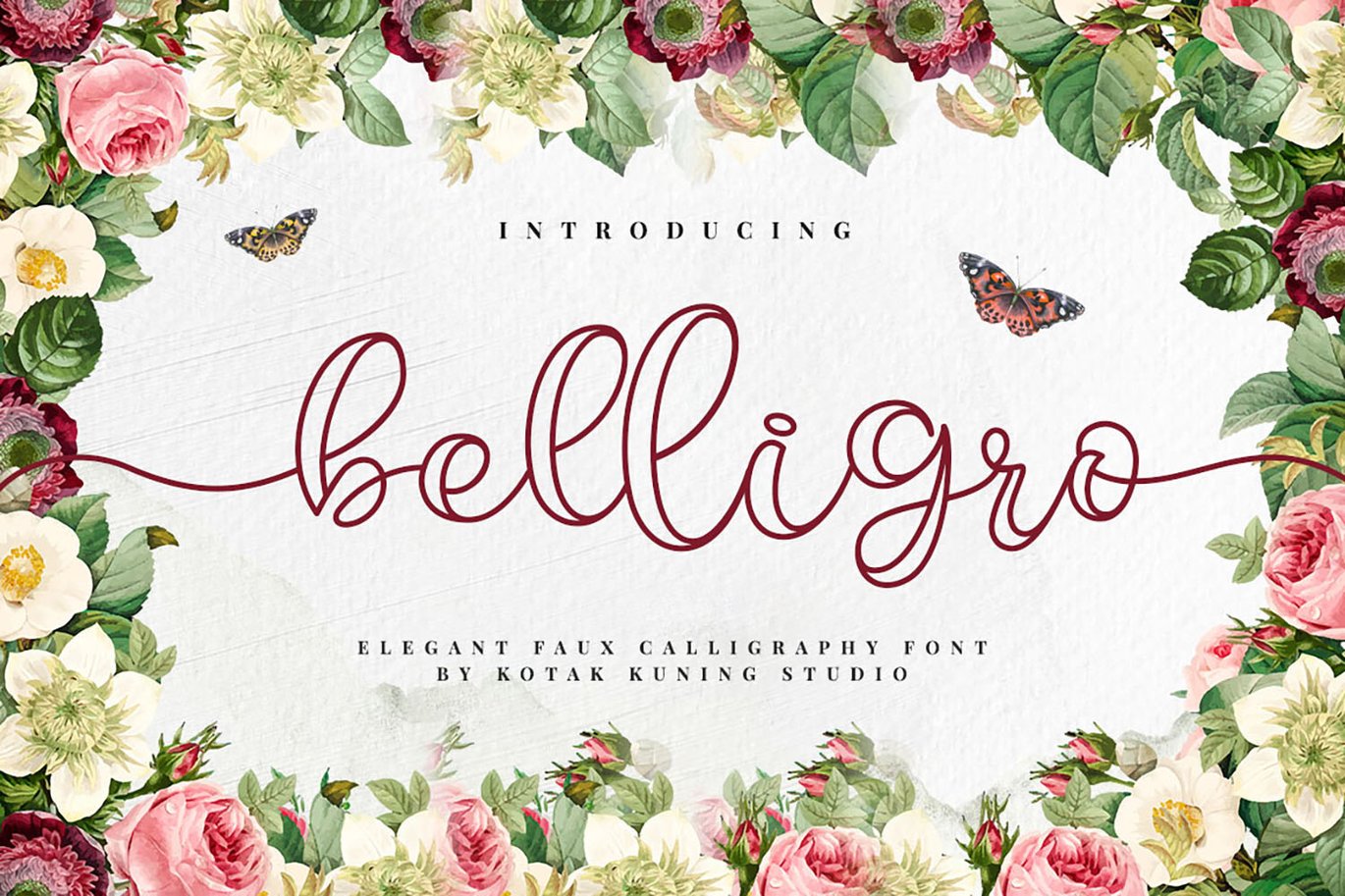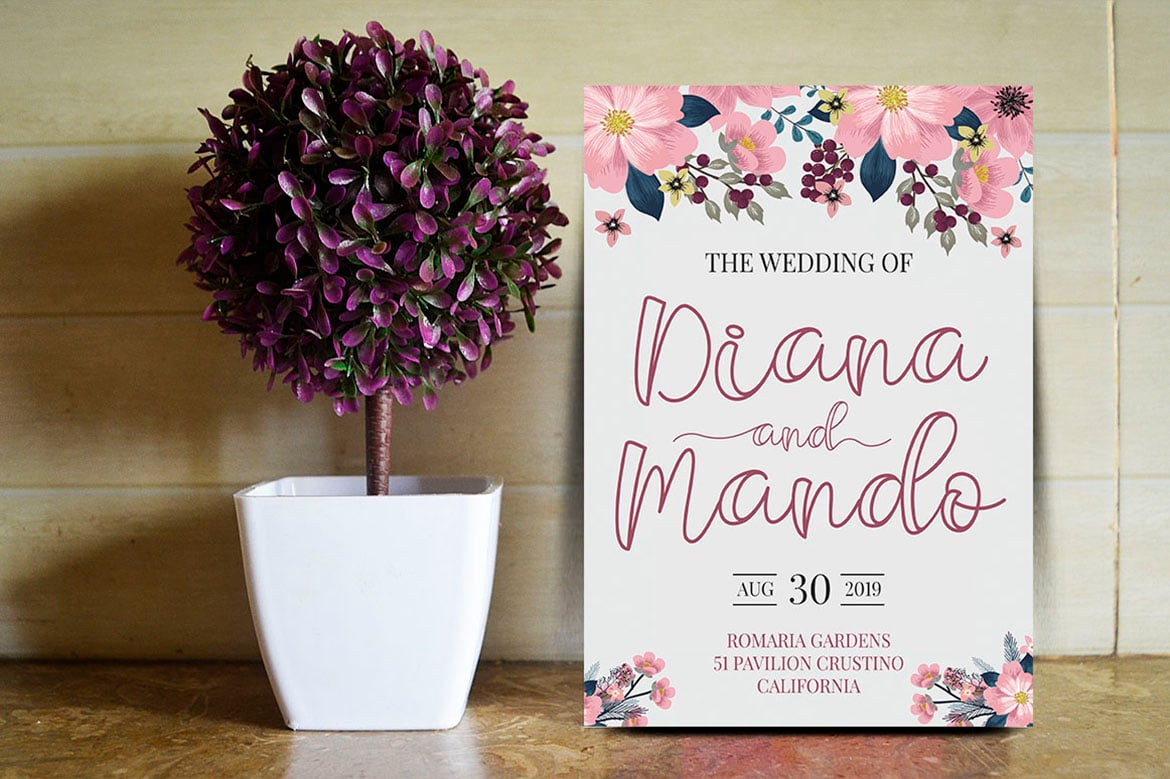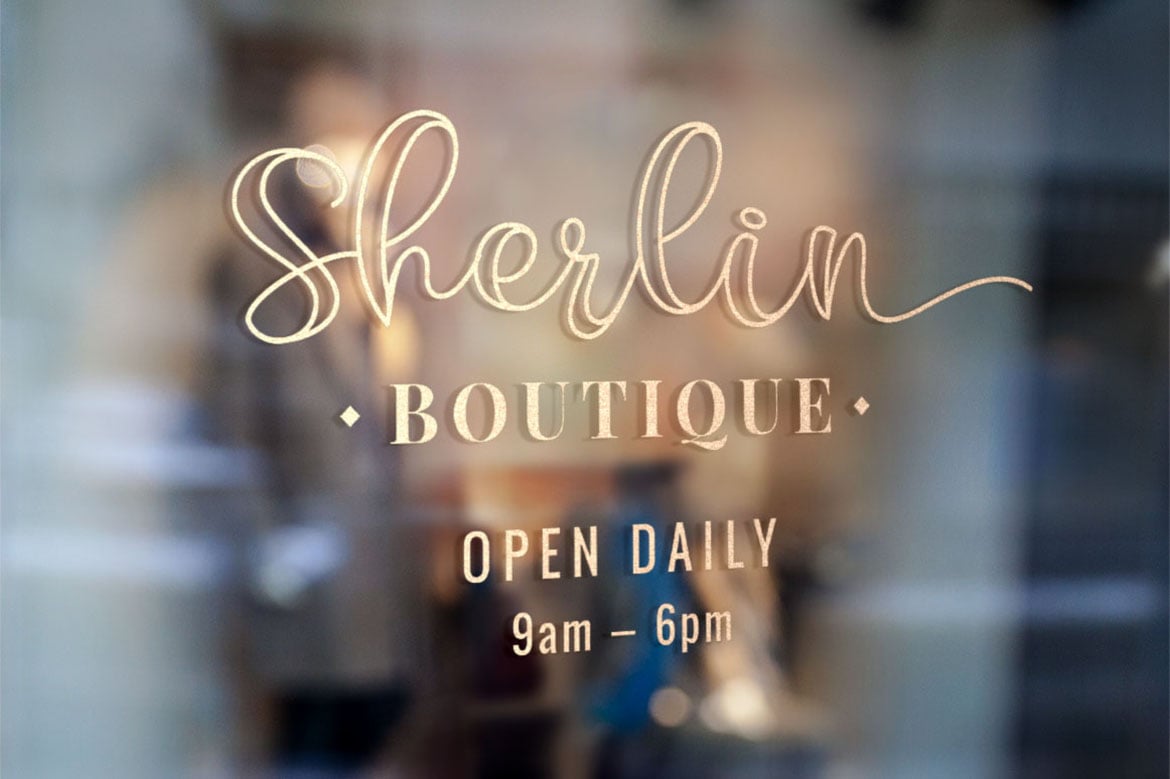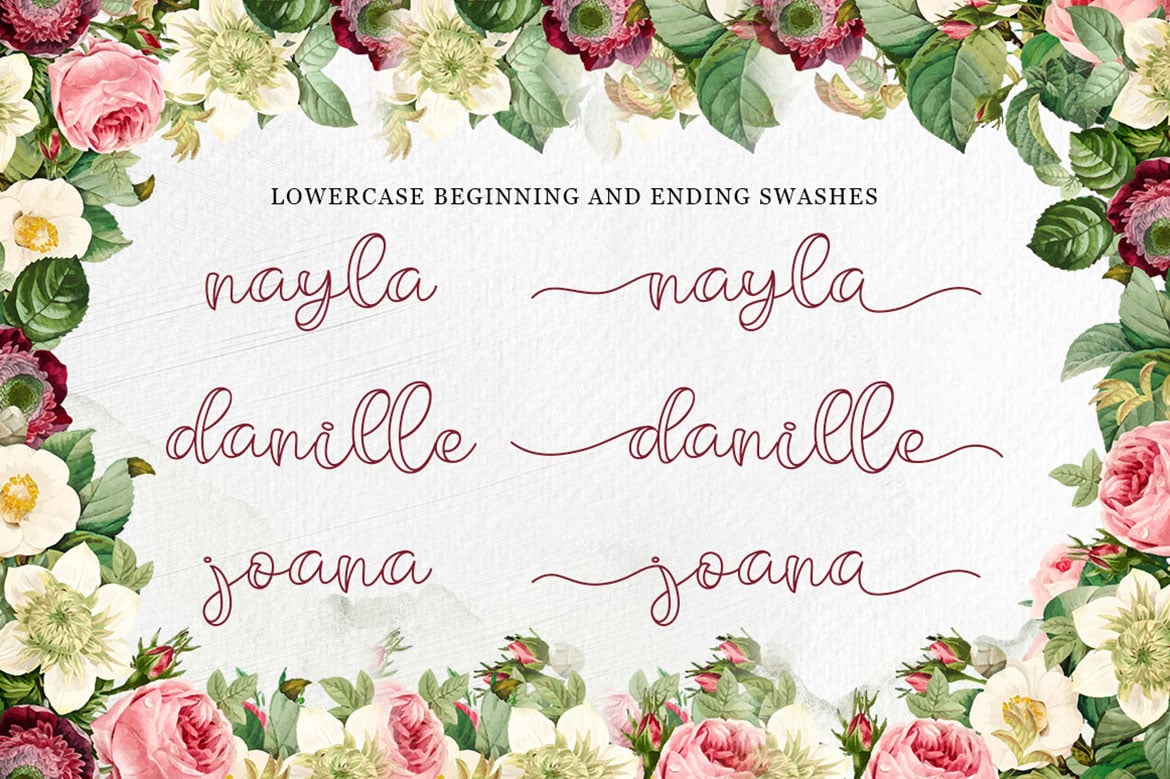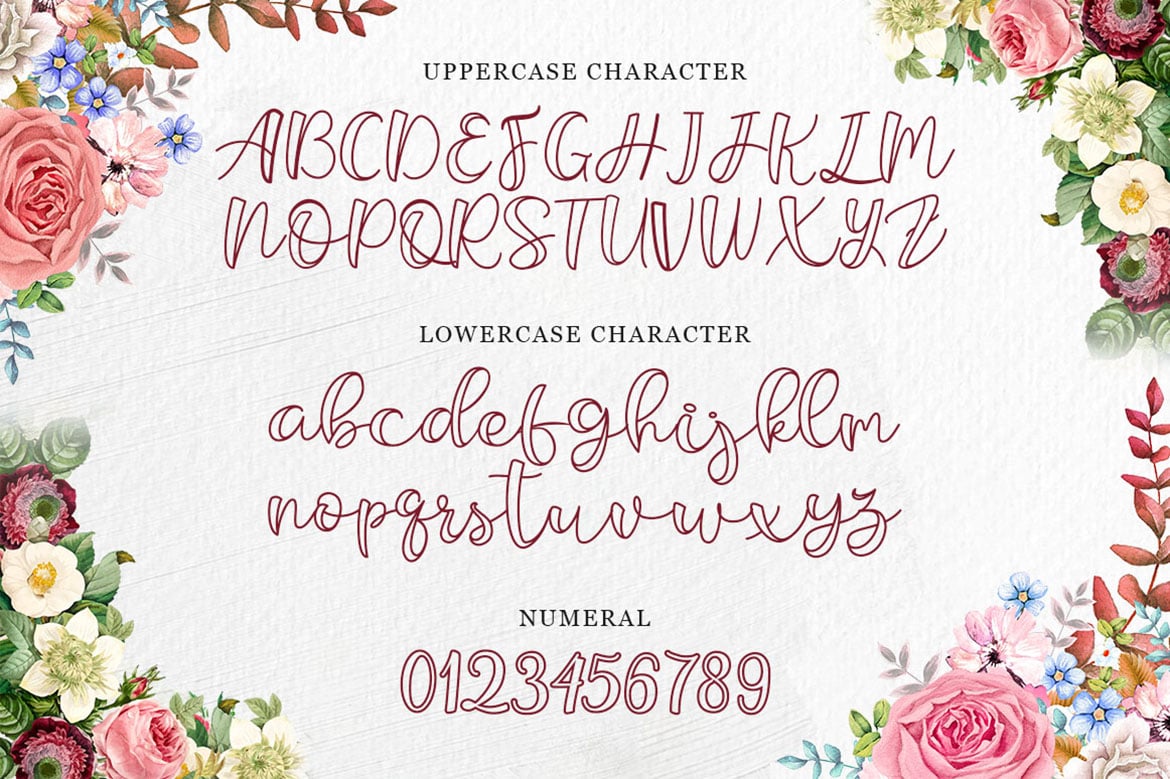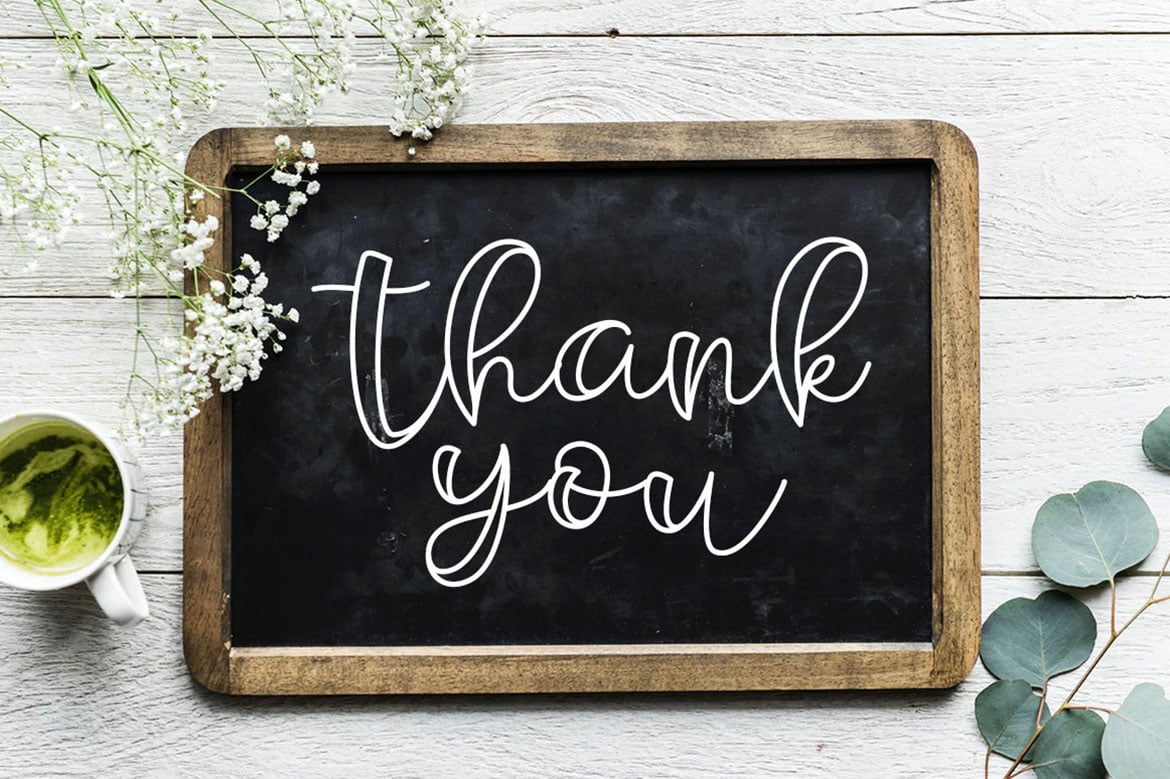
Belligro – Outline Script Font
Belligro is a sweet and stunning script that will easily add a personal feel to your next design idea.
This font is perfect for many different projects such as logos & branding, invitation, stationery, wedding designs, social media posts, advertisements, product packaging, product designs, label, photography, watermark, special events, or anything.